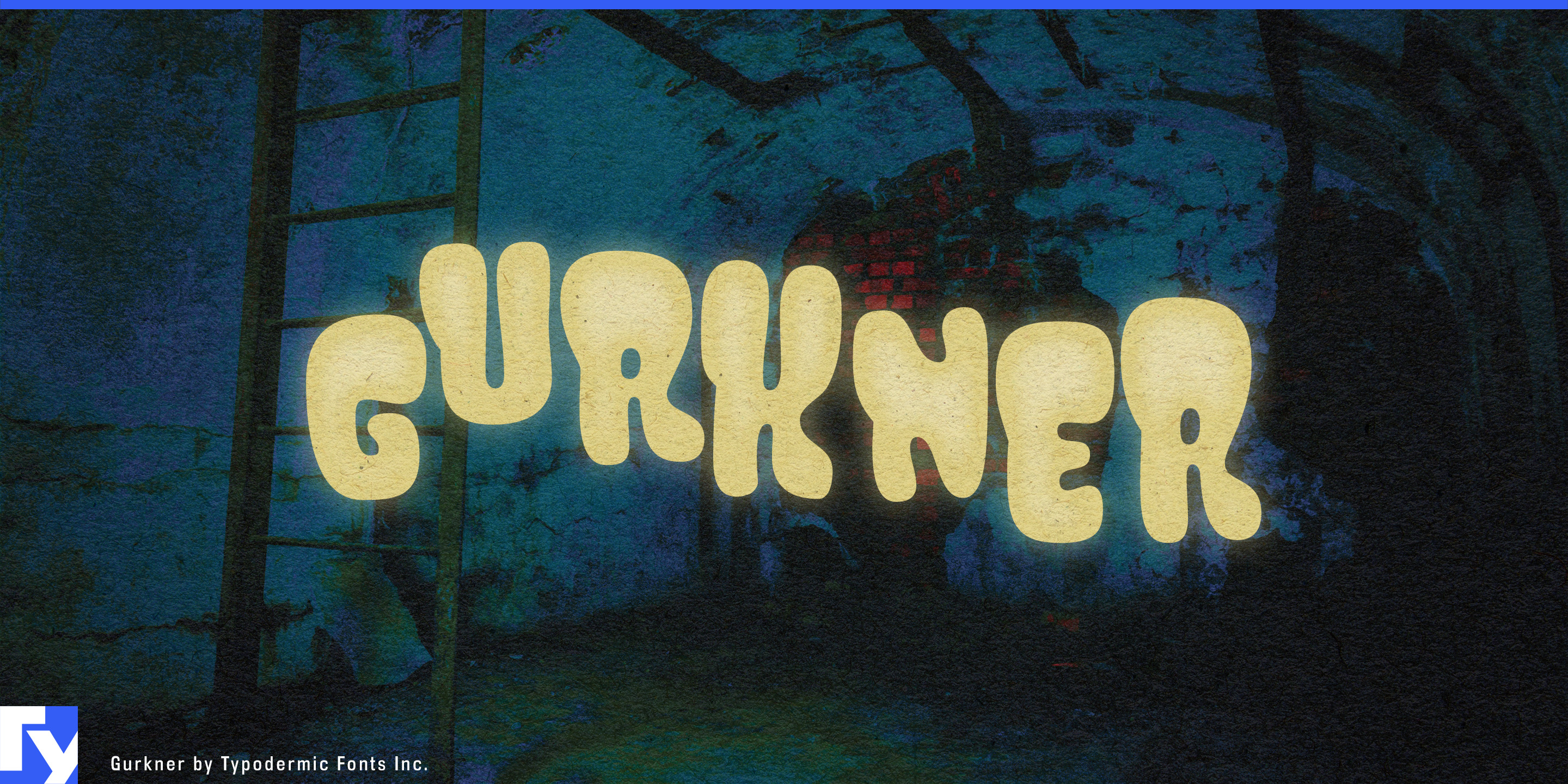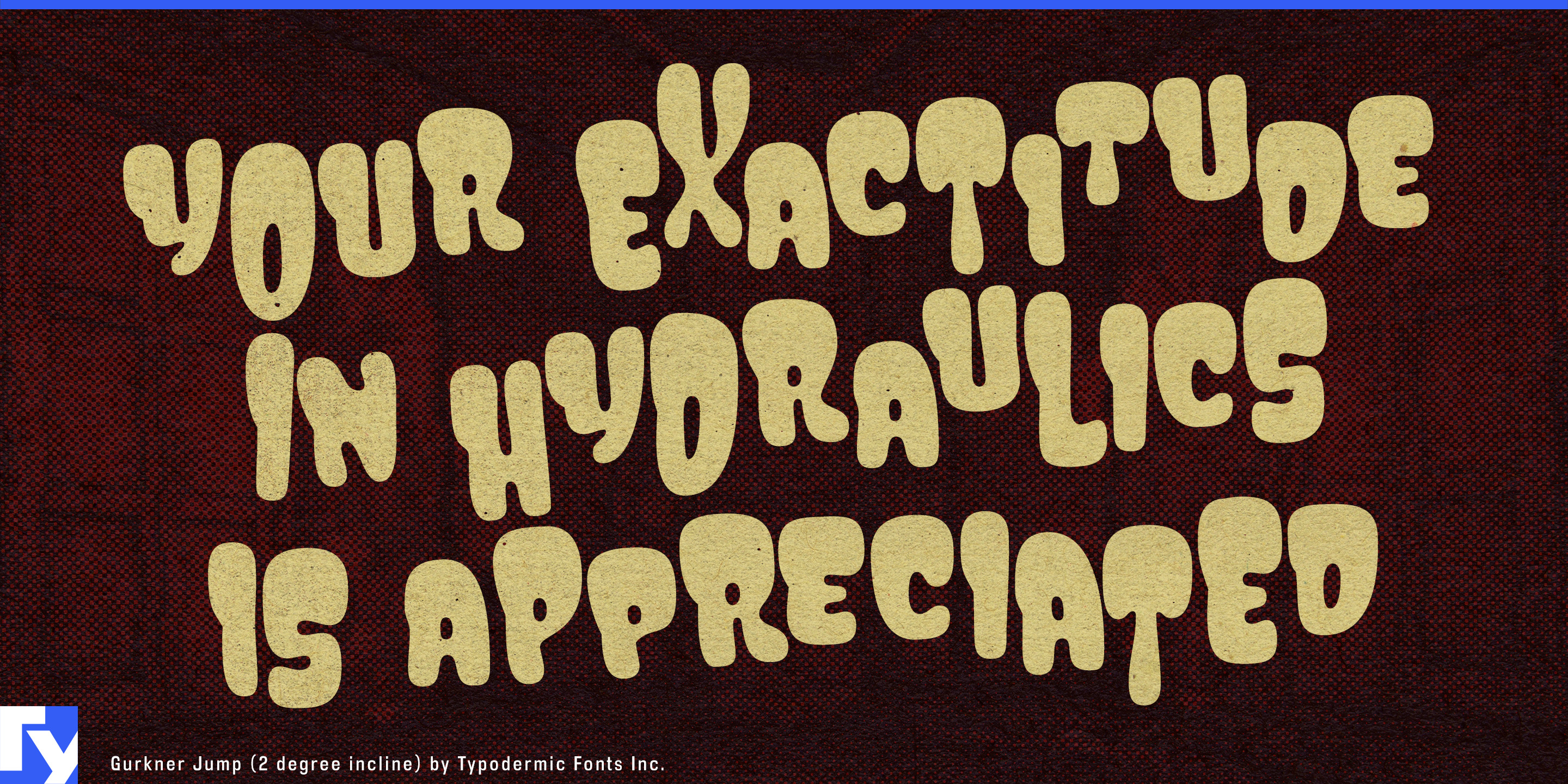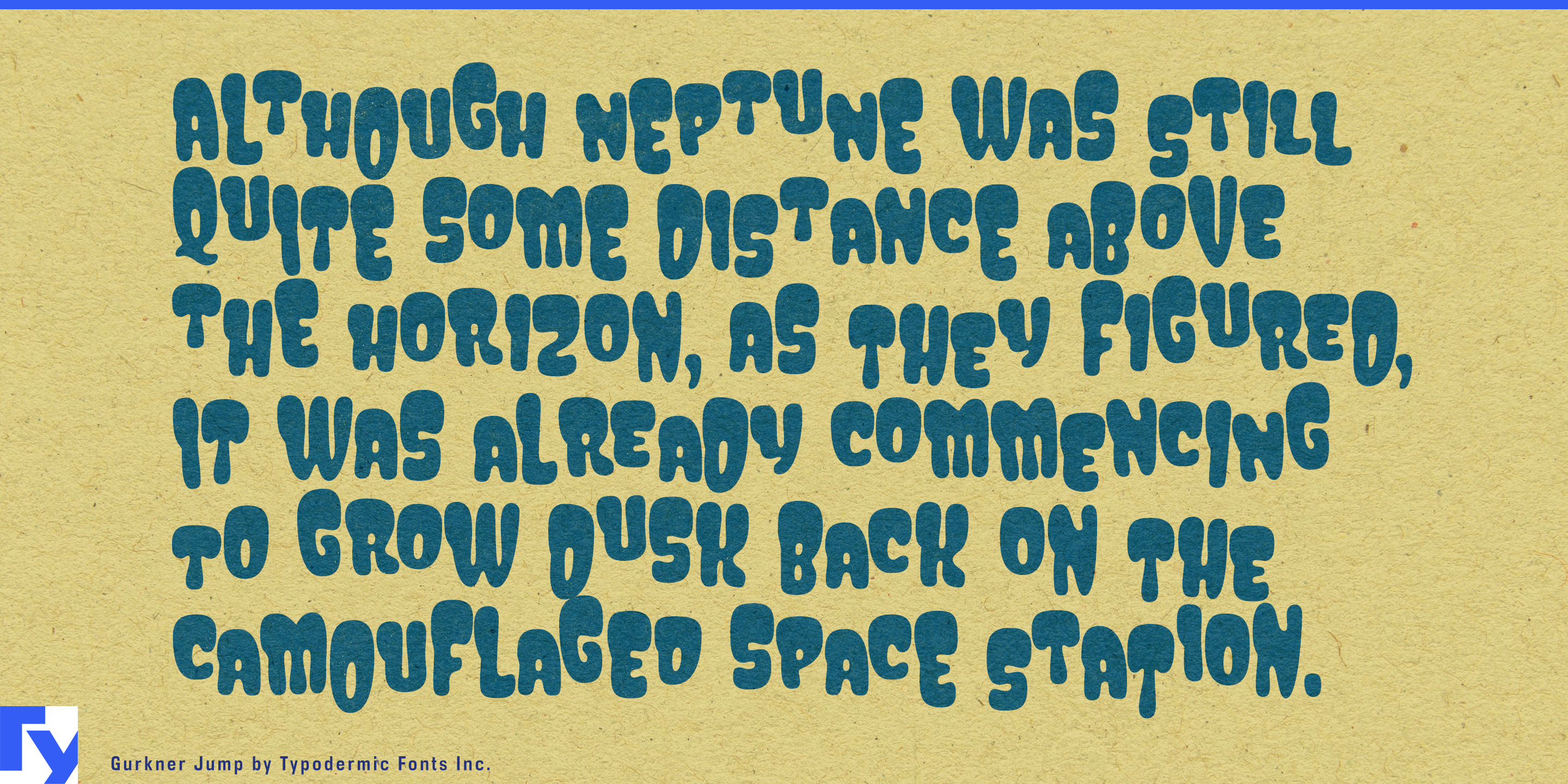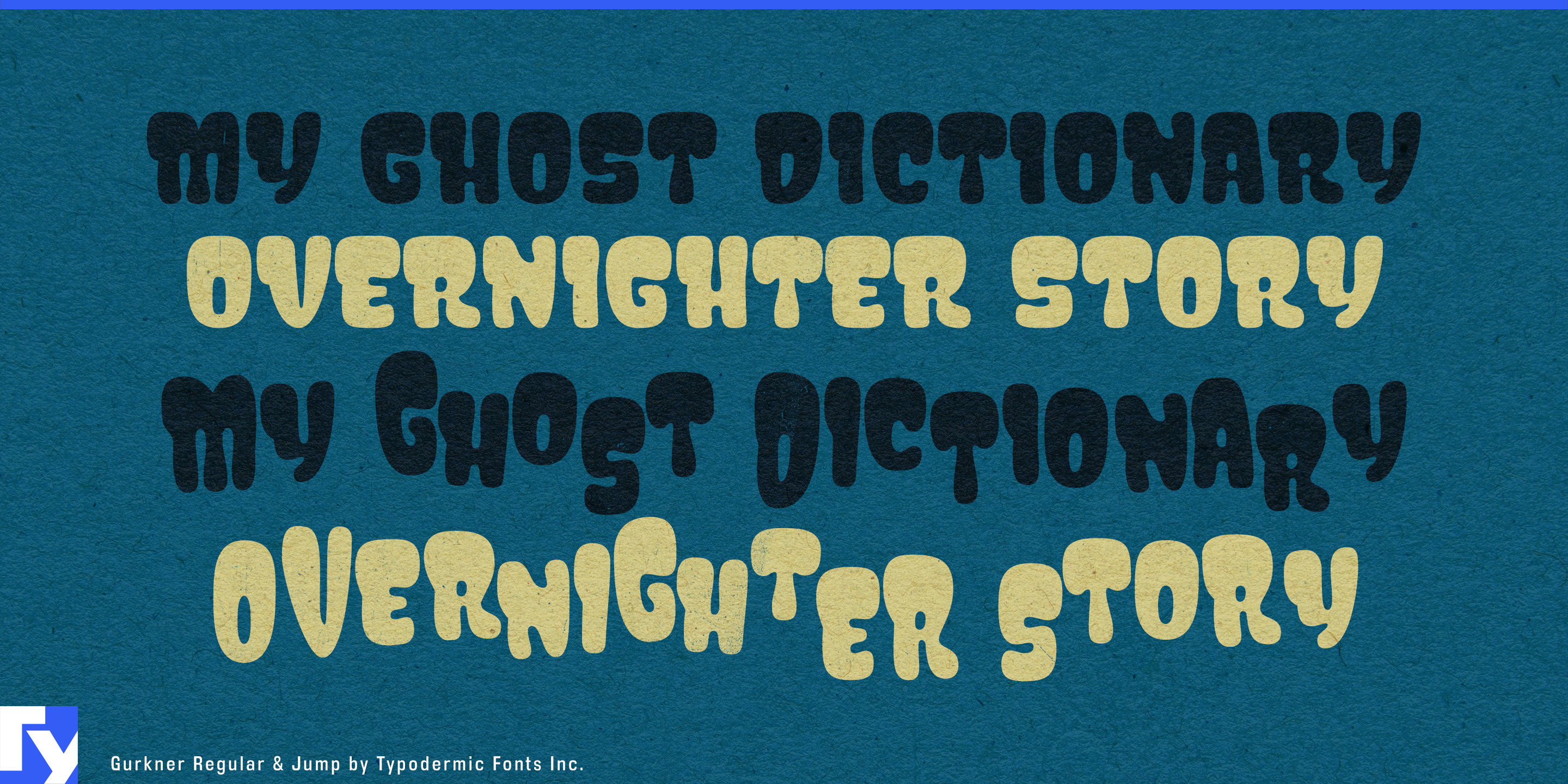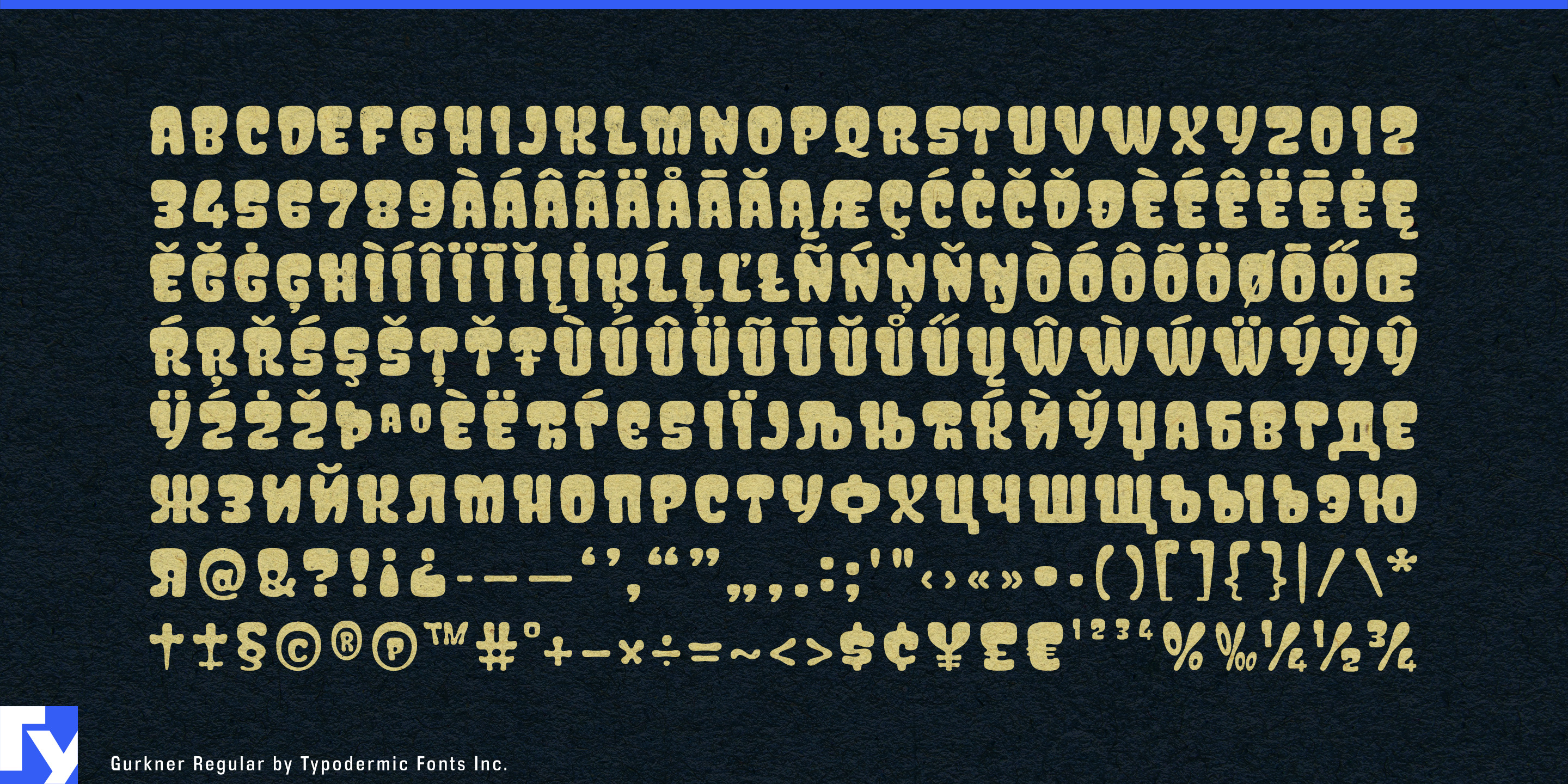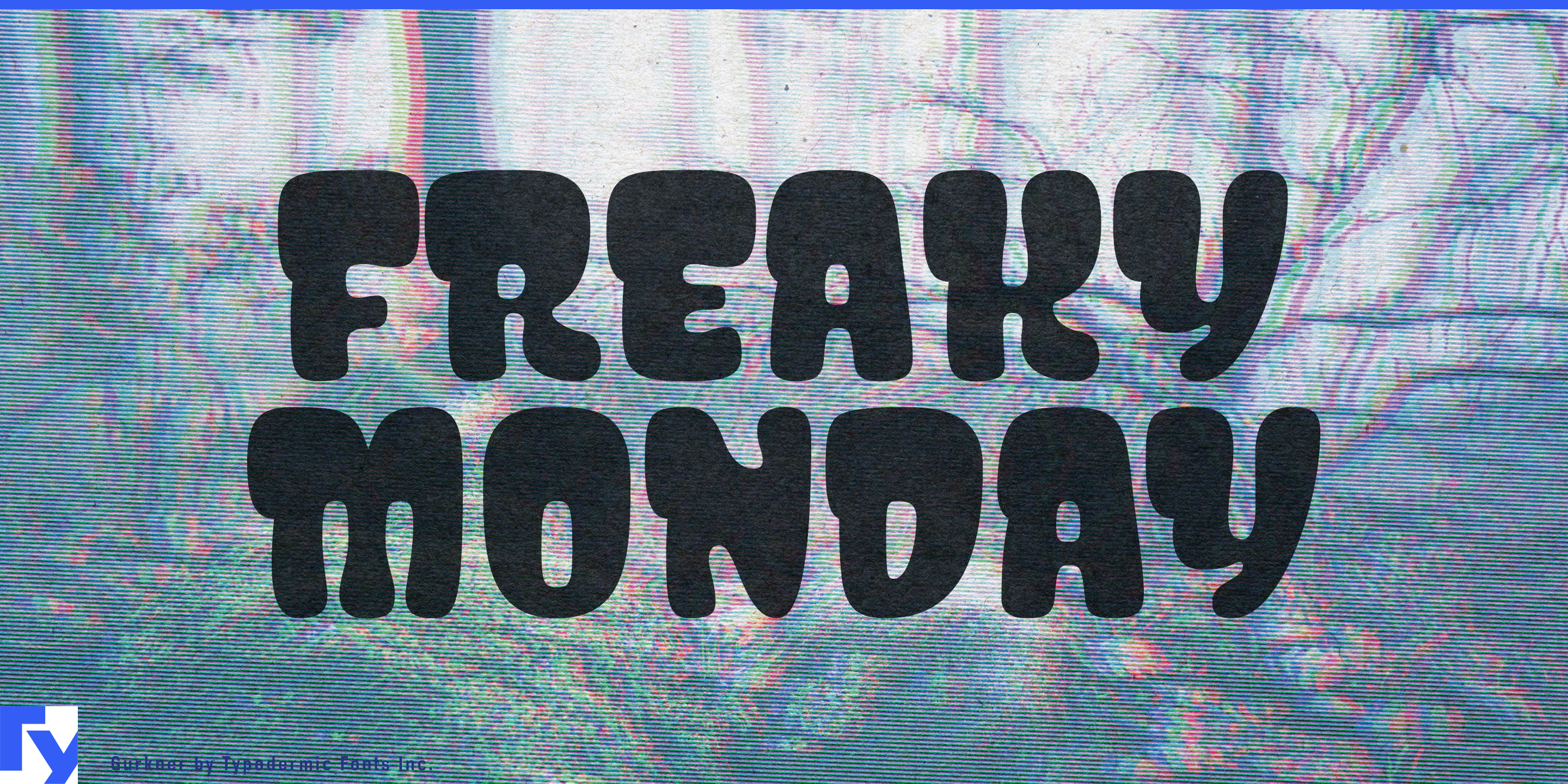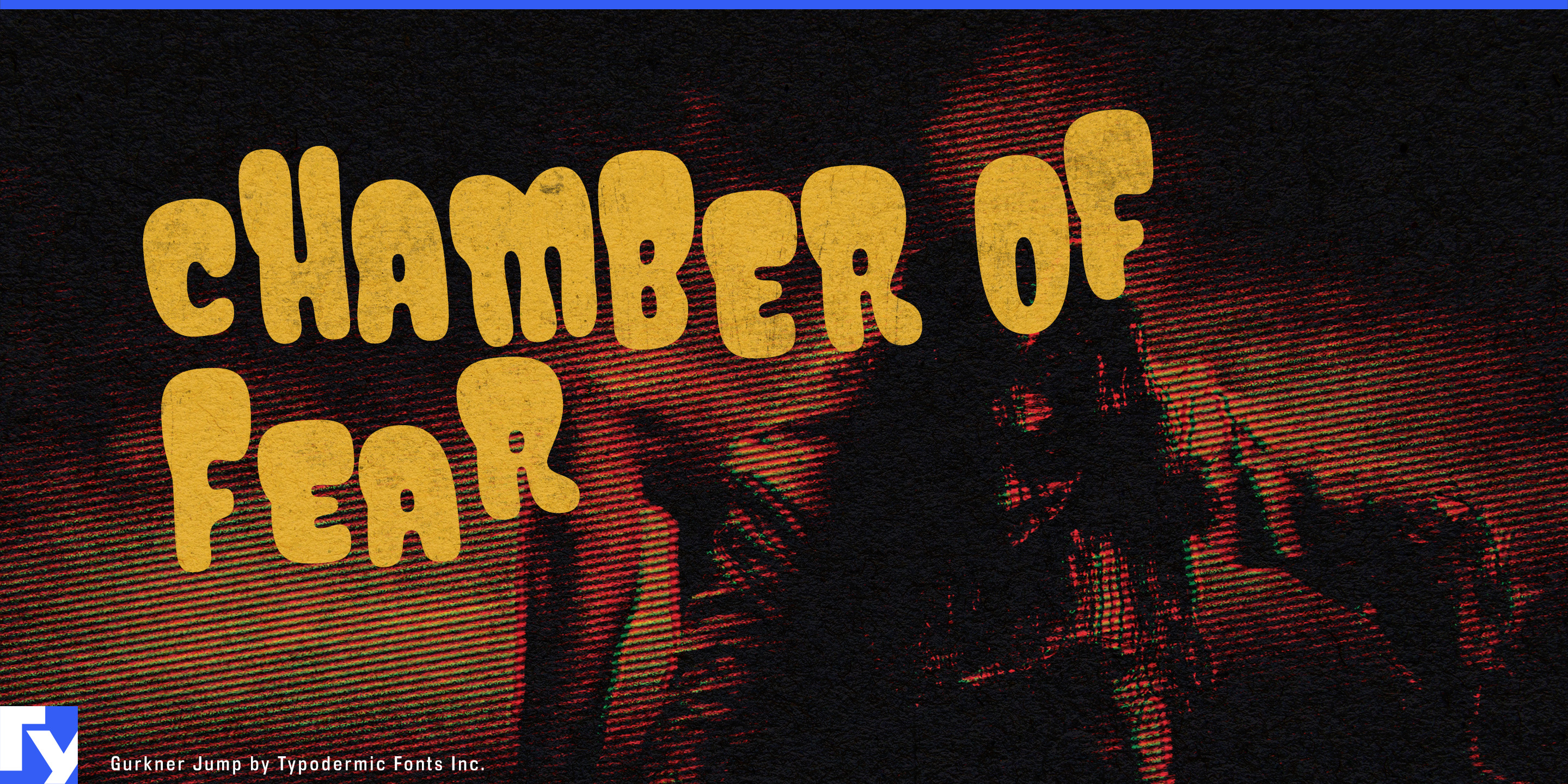
Gurkner
Playful lettering is easy to make once. The difficulty comes when one lively package becomes twelve flavors, a toy becomes a collectible series, or an attraction expands into a whole venue. Hand-adjusted bouncing letters can give the first design plenty of charm, but reproducing that irregular rhythm across product variants, localized names, retail displays, and campaigns quickly becomes cumbersome.
Gurkner turns that irregularity into a repeatable system. Its plump all-caps forms provide a soft, compact display voice, while Gurkner Jump moves characters above and below the baseline for a more animated treatment. Alternate pairings introduce further variation, helping repeated lettering avoid a mechanically duplicated look. The calmer and more restless versions can work together across one product family without forcing the designer to rebuild the bounce headline by headline.
Functional gummies and chewable wellness products are an especially strong fit. Sleep, energy, focus, beauty, hydration, digestion, and other benefit-led products increasingly occupy a space between supplements and confectionery. Gurkner can handle gummy brand names, benefit lines, fruit and dessert flavors, variety packs, seasonal editions, retail displays, and launch graphics. The straighter version can stabilize the main product identity while Jump gives flavors and variants more movement.
Chewy and aerated confectionery extends the same idea into gummies, sour chews, marshmallow products, filled fruit candy, and other soft sweets where texture is part of the attraction. Gurkner can carry master-brand lettering, flavor names, multipack graphics, convenience-store displays, and limited editions while maintaining a recognizable family structure.
Squishy toys, sensory products, blind-box figures, and character collectibles provide another natural setting. One collection may contain standard characters, secret editions, seasonal drops, collaborations, and dozens of individually named figures. Gurkner can keep the series identity consistent across packaging fronts, character names, rare-variant titles, collector cards, countertop displays, pop-up installations, unboxing graphics, and release campaigns.
Large family-entertainment venues can use the same straight-and-bouncing relationship at architectural scale. Soft-play zones, climbing attractions, trampoline areas, arcade sections, prize counters, dessert stations, and seasonal events all need distinctive names while still belonging to one venue. Gurkner can establish the overall identity, then use the Jump treatment for individual attractions, activity zones, party packages, feature walls, and promotional displays.
Gurkner is most useful when softness and bounce need to scale. It gives product families, collectible series, and entertainment environments a controlled way to look irregular without making the designer manufacture that irregularity every time the words change.